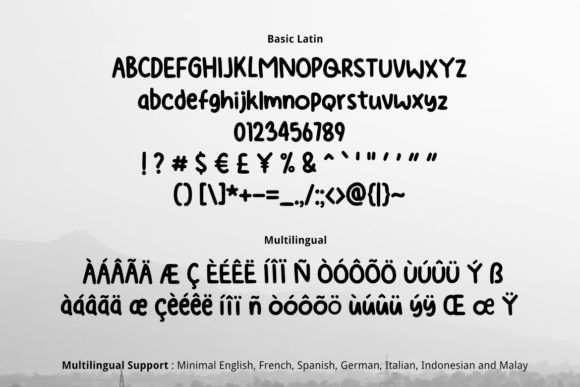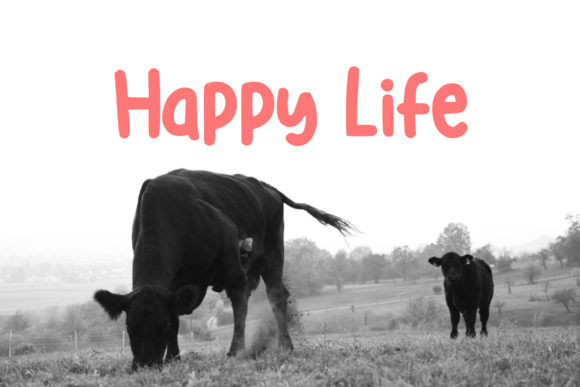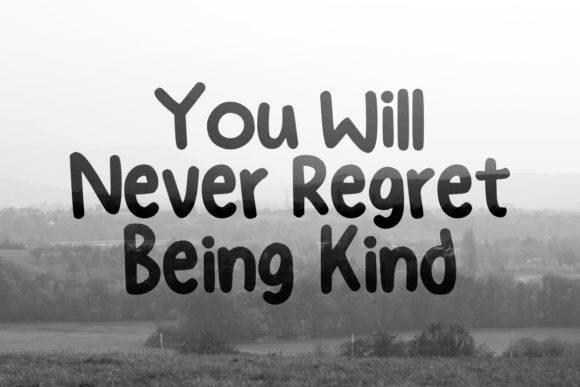
Introduction to Red Angus Font
Red Angus is a cute yet thick lettered display font.
Lovely and childish, this font will look absolutely gorgeous on a variety of school projects or informal design ideas .
Key Features of Red Angus Font
Why Choose Red Angus Font?